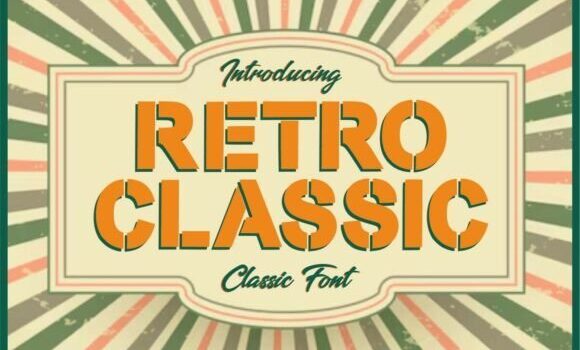
retroclassic
Retroclassic Regular Font – Free Download Introduction to Retroclassic Regular Font Retro Classic is a classic vintage font, a display font that harkens back to the past, recalling the simplicity of life, and conveying a refined sense of friendliness. 📸